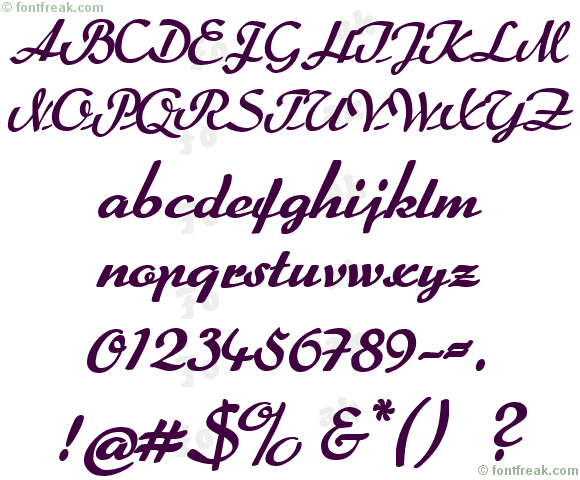
Rumburak
About Rumburak
Rumburak, designed by Peter Wiegel, is a captivating display font that exudes a unique charm, making it an excellent choice for various creative projects. This font falls under the decorative category, characterized by its fluid, cursive style that adds a touch of elegance and whimsy. The stroke weight is medium, providing a balanced visual appeal, while the smooth curves and flowing lines create a sense of movement. The spacing is thoughtfully designed to enhance readability without sacrificing its artistic flair.
Rumburak is particularly well-suited for a range of applications, including wedding invitations, where its graceful design can elevate the overall aesthetic. It also works wonderfully for movie posters, lending a dramatic flair that captures attention. Restaurant menus can benefit from its inviting appearance, making dish names stand out in a delightful way. Additionally, this font is ideal for greeting cards and promotional materials, where a personal touch is desired.
Targeted towards graphic designers, small business owners, and content creators, Rumburak offers versatility and personality, fulfilling the needs of those looking to make a memorable impression. Its unique style can enhance branding efforts, ensuring that materials stand out in a crowded market.
What sets the Rumburak font apart is its ability to blend elegance with approachability, making it suitable for both formal and casual contexts. The combination of decorative elements with a clear and legible structure ensures that it remains functional while still being visually striking. For those interested in this charming typeface, a Rumburak font free download is available, allowing users to incorporate its distinctive style into their creative projects effortlessly.